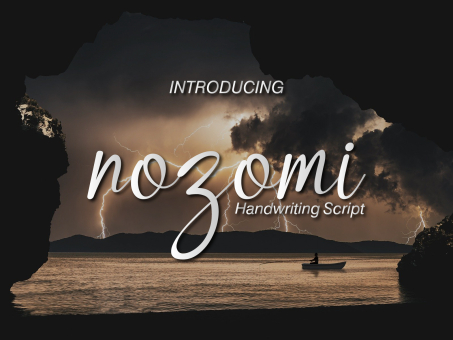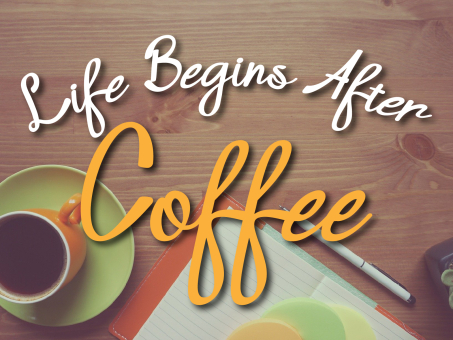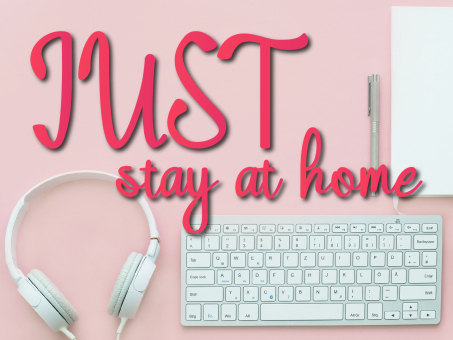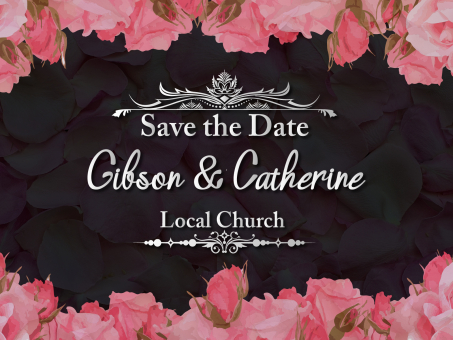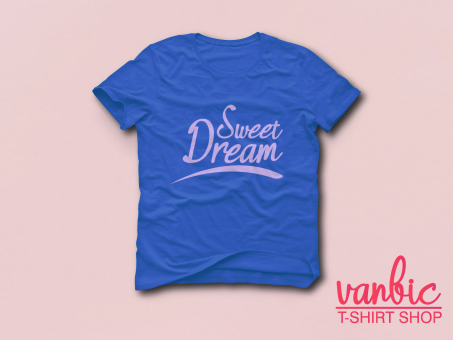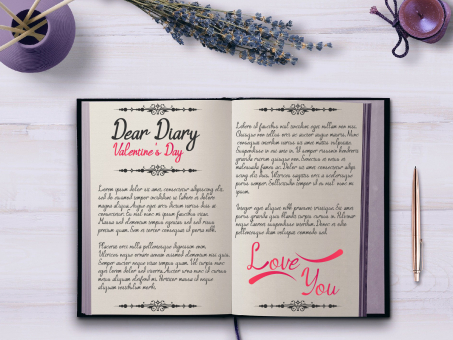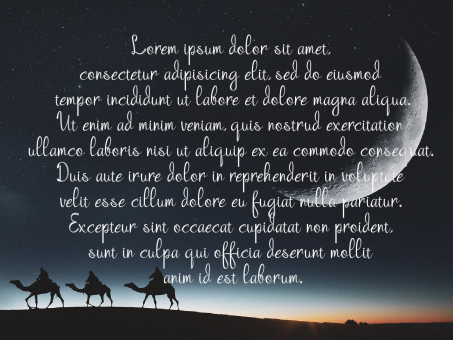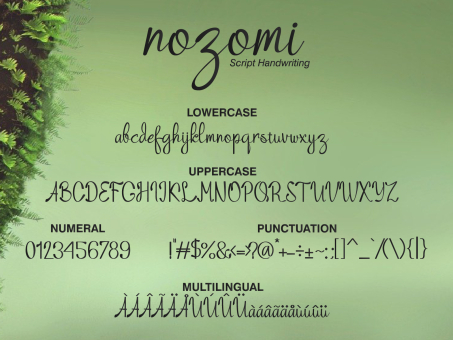
Nozomi
Nozomi is a cute and casual handwritten font with an incredibly friendly feel. Whether you’re looking for fonts for Instagram or calligraphy scripts for DIY projects, this font will turn any creative idea into a true piece of art!
Designer: Jprint Studio
Publisher: Jprint Design and Printing